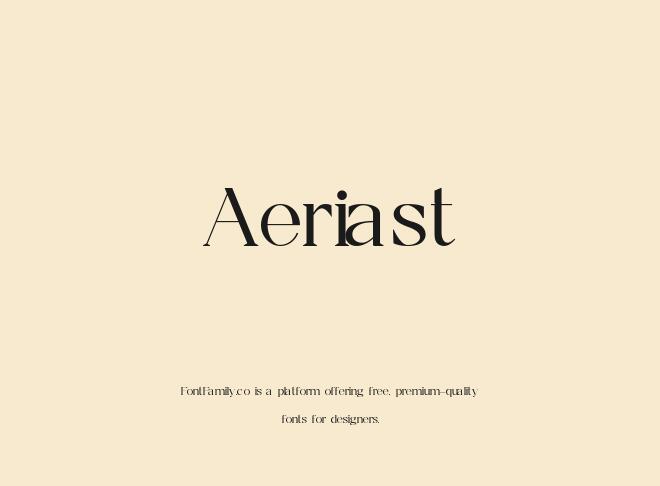
Aeriast Font
Aeriast Font, a creation of Creative Foundry, is an embodiment of modern minimalism with a touch of elegance. This geometric typeface borrows inspiration from the clean lines and sharp edges of architectural designs, making it perfect for use in professional and creative projects alike. Aeriast Font is a harmonious blend of simplicity and sophistication, setting it apart from other fonts in the market. It's extremely versatile and works excellently in headers, logos, posters, and even body text. With its sleek design and high legibility, it's a great choice for designers looking to add a modern, clean, and stylish touch to their work. Aeriast Font is free for personal use, making it accessible to everyone. Its unique style and versatility make it a must-have in every designer's toolkit.